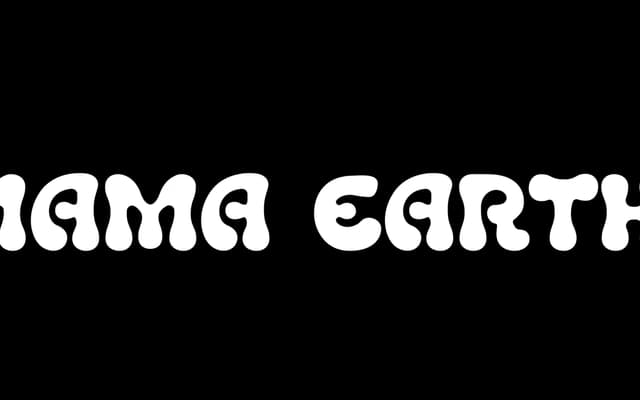
Mama Earth
A thick, wavy display typeface with bulbous forms drawn from the organic lettering styles of the 1960s and early 1970s.
Mama Earth takes its cues from the hand-crafted, psychedelic type aesthetics of the 1960s and early 70s, with swelling, irregular contours and chunky strokes that give it a distinctly period character. The wavy letterforms and rounded details make it well suited to branding or editorial projects that call for a retro or countercultural flavour. Available as a single style at a modest price point, with a commercial licence add-on available separately.
Thick, bulbous letterforms with wavy organic contours place this firmly in the display category, drawing on the psychedelic and hand-lettered aesthetic of 1960s and early 1970s graphic design.